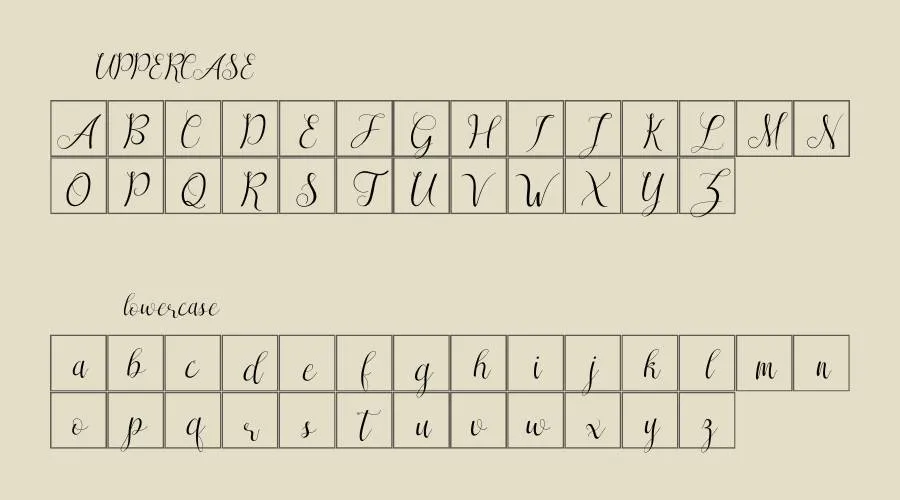
Sareeka Font
About Sareeka Font
In this article, we shall introduce to you a very elegant and good-looking typeface called Sareeka font. It was developed by a famous graphic designer known by the name of Aqrtypeface and is under the category of the Calligraphy texture family. You may get it free from here and can utilize it for different designs, and tasks.
This stunning typeface includes only one regular style and 161 unique types of characters such as uppercase letters, numeric, digits, symbols, and punctuations. You can utilize this typeface with slogan font and make modern projects.
As a designer, you should choose the right font for your projects, and this texture is perfect for stylish and modern purposes. The online generator tool of this typeface will help you to transform all your normal type of alphabet characters into stylish and trendy shapes.